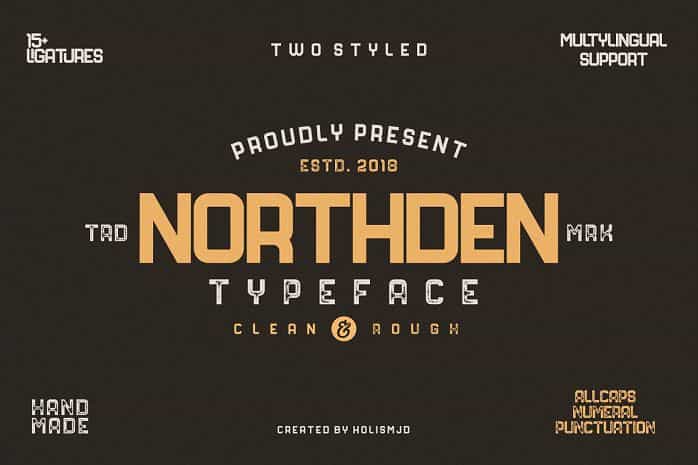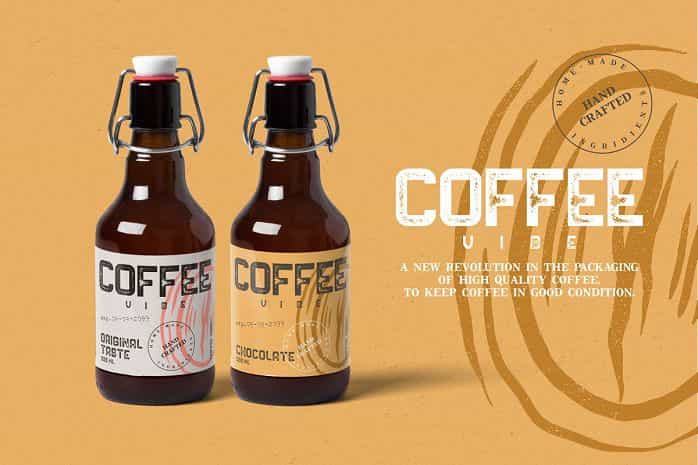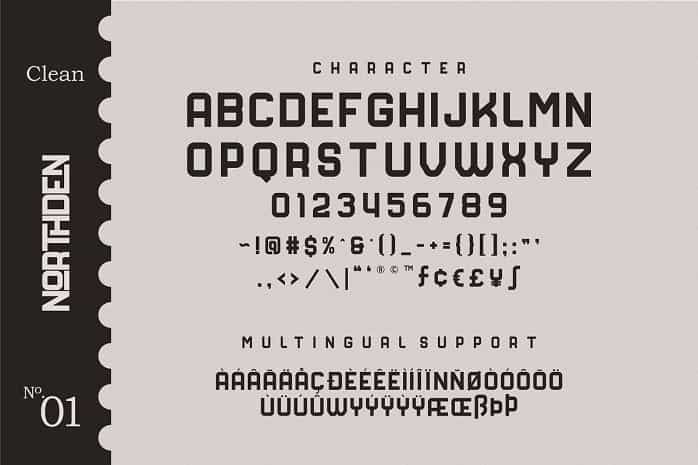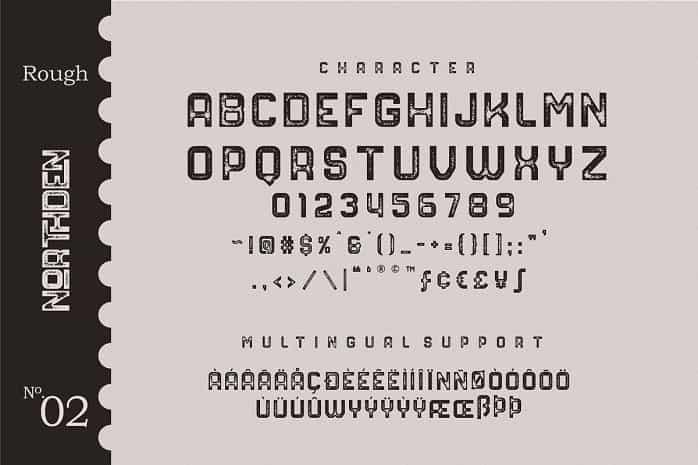
Northden Typeface
Introducing Northden Font. Northden is a typeface font that has a masculine style and it is the right choice for your design needs if you want to have a classic, vintage look but still be modern. This font is just what you need for any logo, product label, poster or design. The font is available in 2 styles, clean and rugged, which are both OTF and TTF formats. Besides, it also supports multilingual languages…